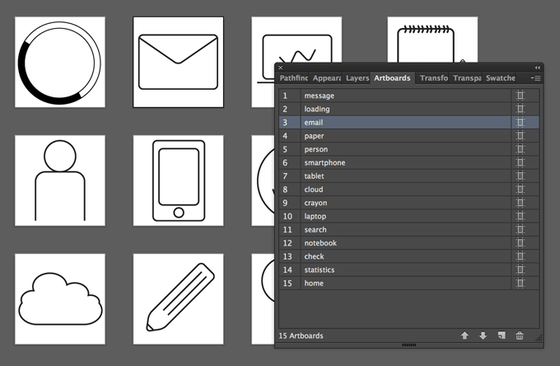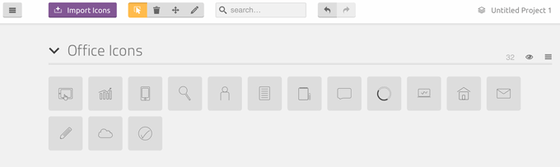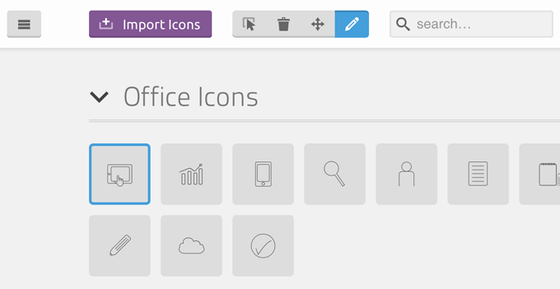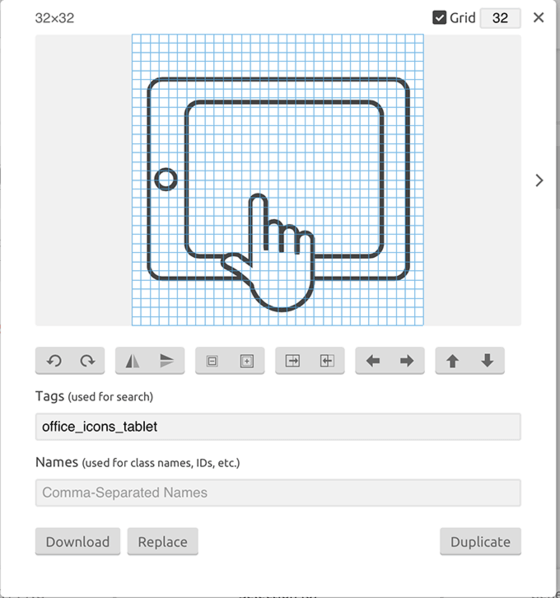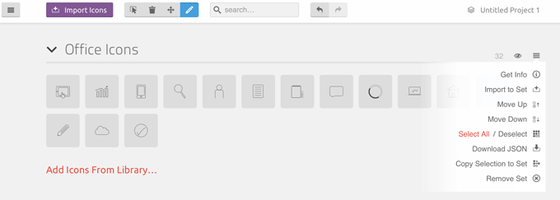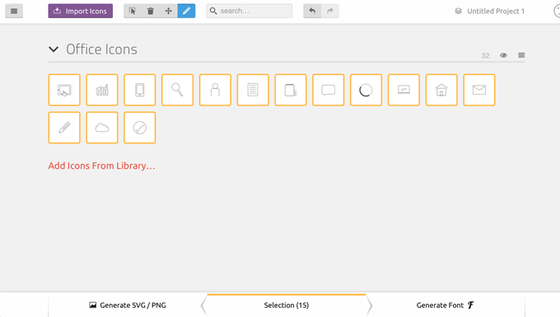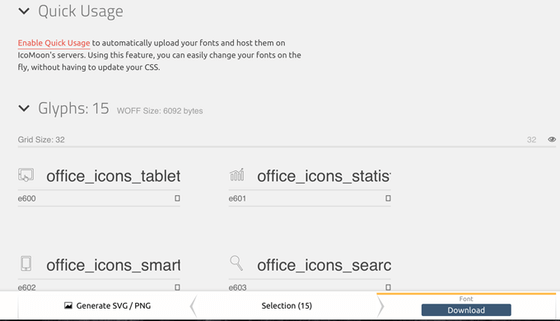
Icon fonts are an incredibly useful way to implement your favorite icons quickly and in almost any environment, from Photoshop to the web. Today, we’re going to learn how to create a custom icon font using the icon set of your choosing.
What Is an Icon Font?
Icon fonts are typical fonts that simply contain symbols and glyphs instead of letters or numbers. Each character or symbol can be easily displayed in HTML or CSS. For example:
There are some great advantages to using icon fonts instead of bitmap images:
- Scalability: because they are vector graphics, you can easily scale them up or down without losing their quality
- Fast loading time: since they have a small size, your website will load much faster than it would load if you used bitmap images
- Effects: you can add CSS3 effects and animations to them
- Lightweight: icon fonts are more efficient because they require only one http request to load one font file
- Retina display: since the icon font uses .SVG, your icons will look great on retina
How to Create an Icon Set
To create an icon font, you need to design your icons first and then turn them into a font. Think about the theme of your icons and the style that you want to achieve. Some popular themes are: business, technology, sports, or social media. Minimal, flat, and light design seems to be a popular trend for iconography nowadays, so you might start with this one. This type of design uses thin lines as the basic form, so just make sure you take this into consideration when you set the weight of your strokes in Illustrator. The first step is to design your icons and save them as SVGs. You can use any software you want to create vector files – but now I will show you how to do it using Adobe Illustrator.
Step 1
You can start with a 64x64px Illustrator document. Using the “Number of Artboards†option, you can indicate the amount of artboards you want to create.
Step 2
Draw an icon on each artboard. As you draw, give each artboard a logical name. This will come in handy when you save your files because it will be the name of the SVG file!
Step 3
Take these things under consideration before saving:
- You must have transparent backgrounds
- Glyphs will be interpreted as black
- use the Pathfinder panel to combine overlapping shapes
- Convert paths to filled shapes by using Expand (Object>Expand; Object>Path >Outline Stroke)
Step 4
Use “Save As†to export the SVG file. Select SVG from the dropdown menu and make sure the option “Use Artboard†is checked.
Now that your icon set is ready, you can move on to the next step!
How to Create an Icon Font
Creating an icon font on your own sounds difficult, but there are lots of tools out there that make the task quick and painless. IcoMoon is my personal favorite, so that’s what we’ll use.
Since your icon set is done, you can now upload your files to IcoMoon. To begin, click on “IcoMoon app†on the right side. Use the “Import icons†button to upload your SVG files. Your set will appear at the top.
Step 1
From the top panel, select Edit to resize your icon (if you need to). Click on Edit, select one icon and the Edit window will open. Here you can resize or move the icon, download the SVG file or replace it.
Step 2
From the hamburger menu, select all icons (the selected ones will have a yellow frame). Click Generate Font at the bottom of the page. Add a font name. Now download your font and add it to your CSS.
This is an example of how the CSS will look:
Try It Out!
Using an icon font saves a lot of time and fixes all your problems with size, effects, retina display and performance. There are some solid alternatives to IcoMoon, such as fontastic.me and fontello.com. Try them and see which one suits your project needs best.